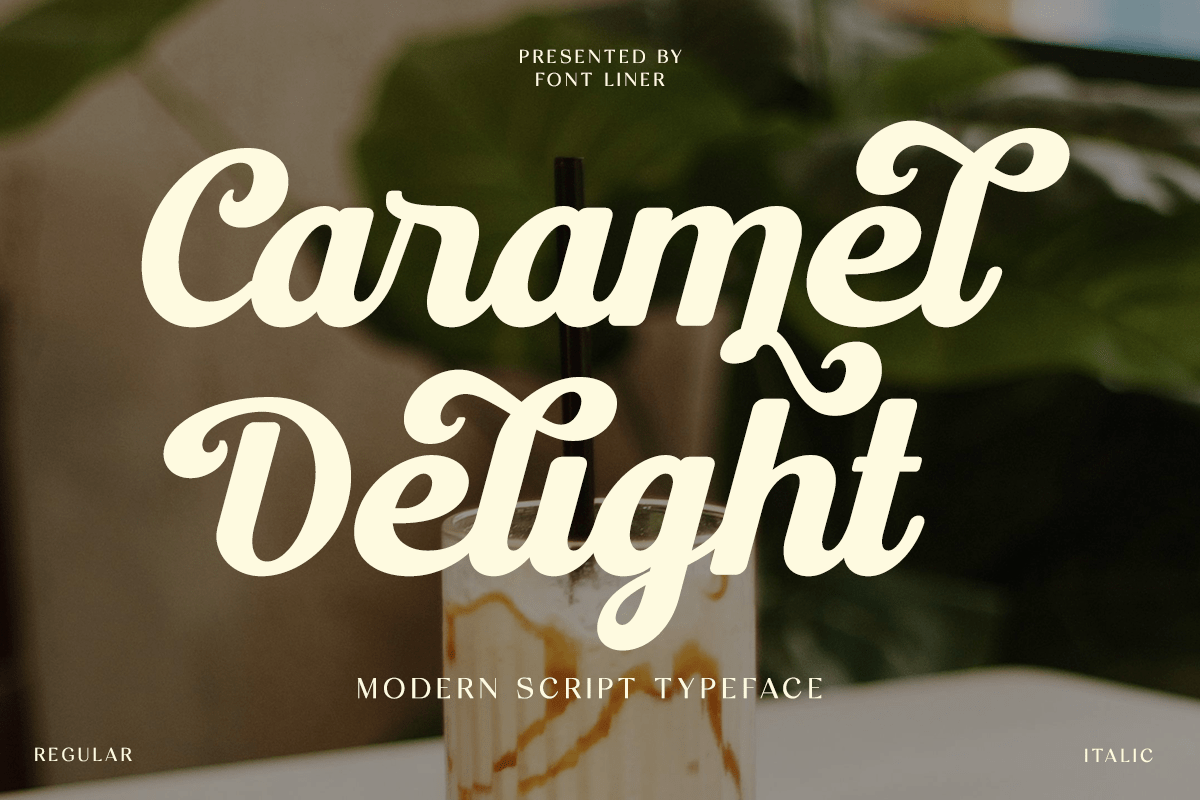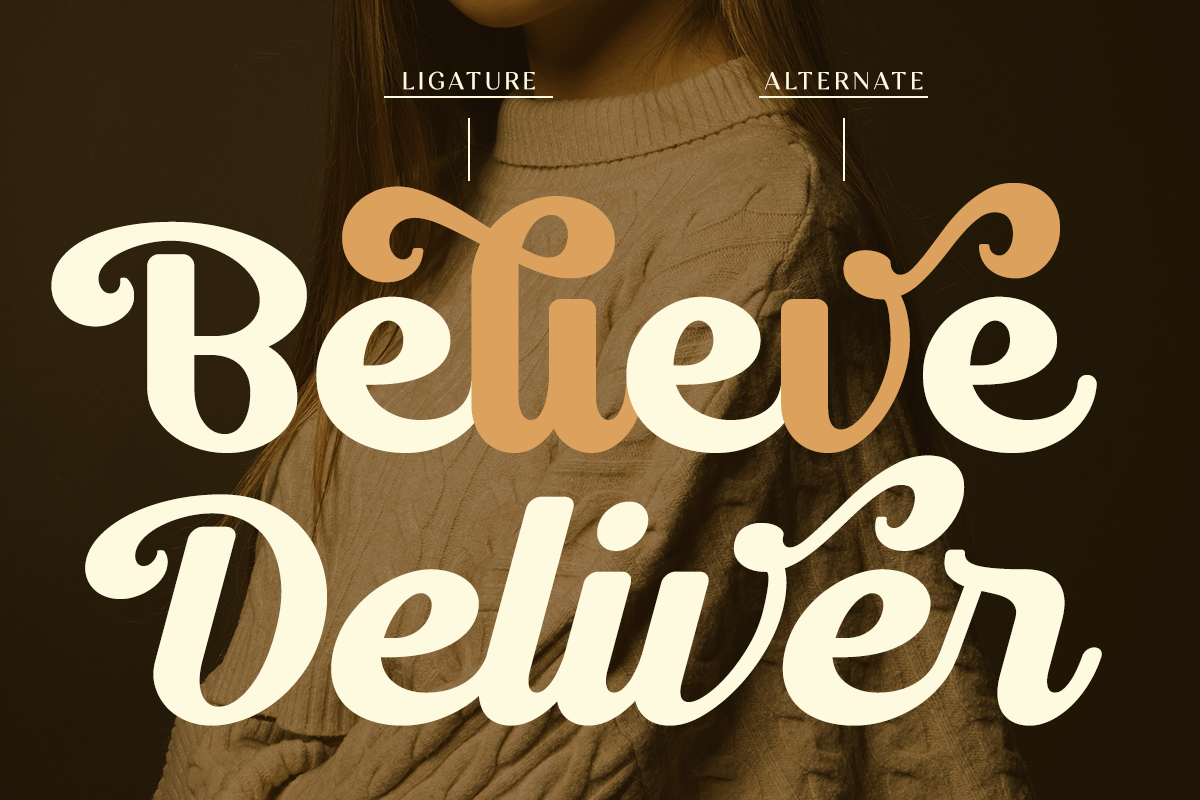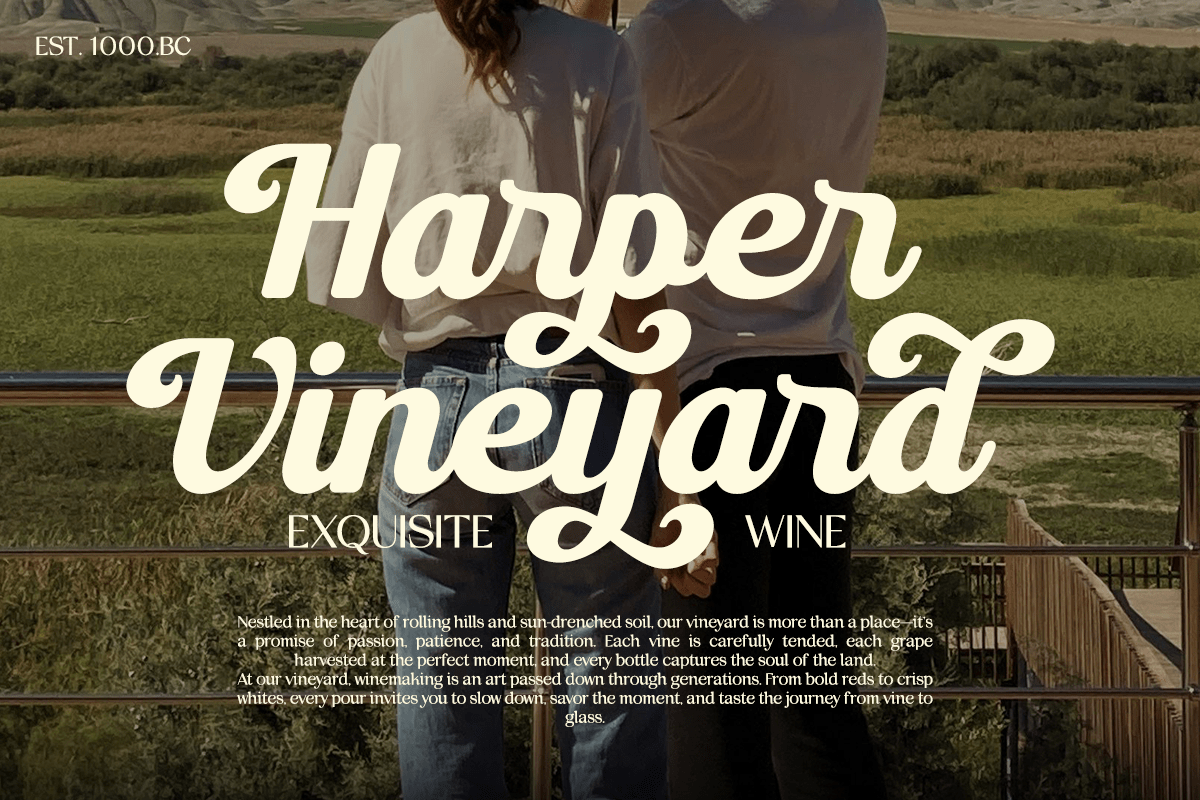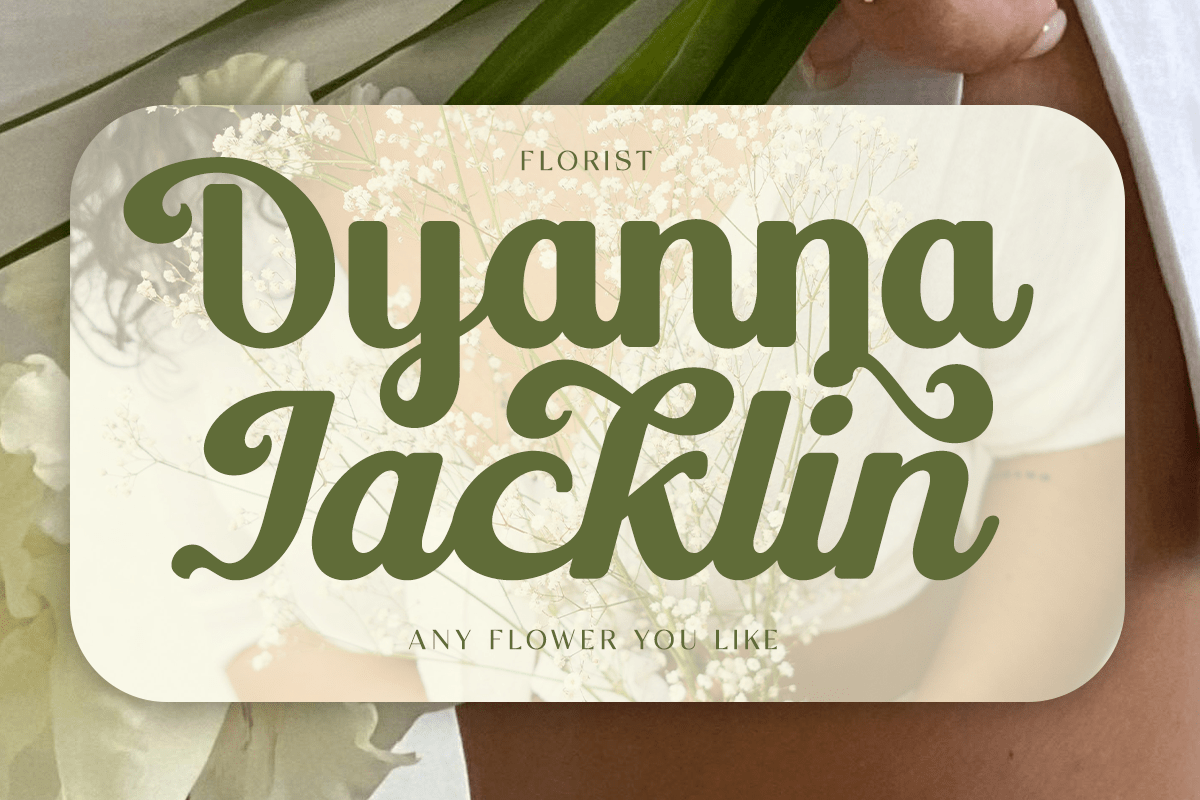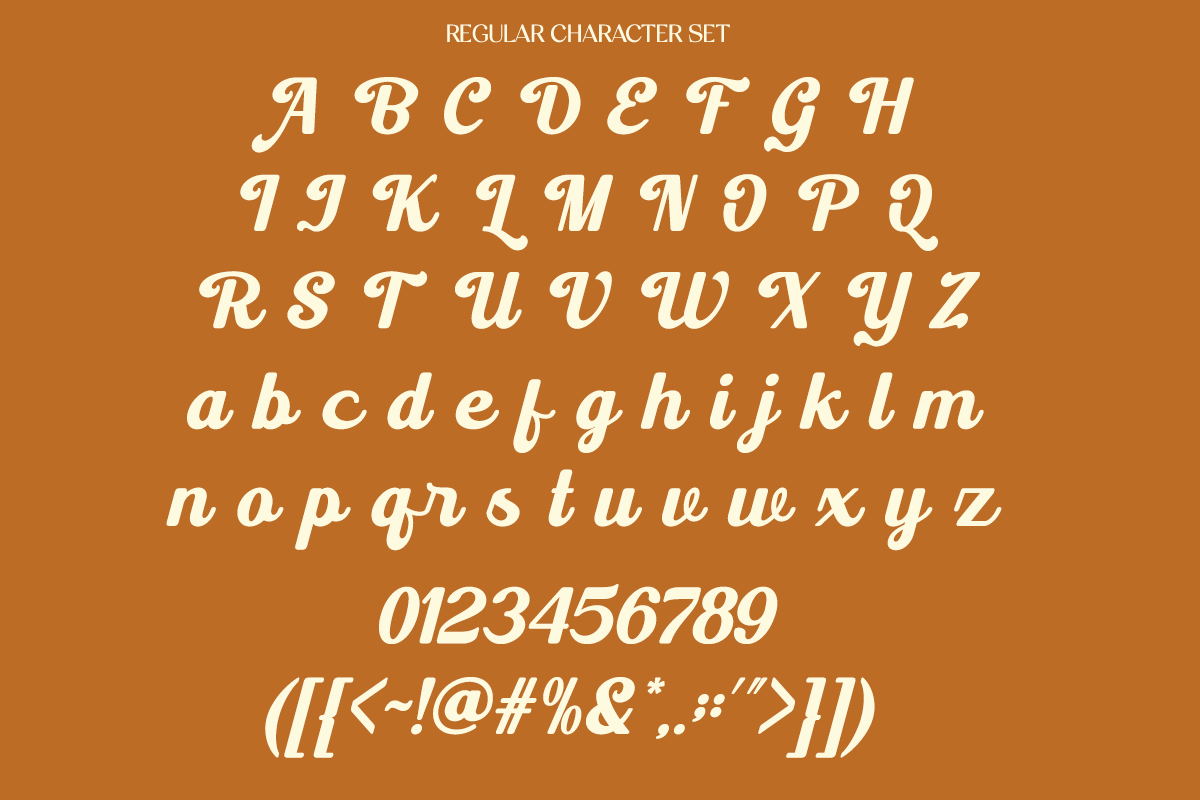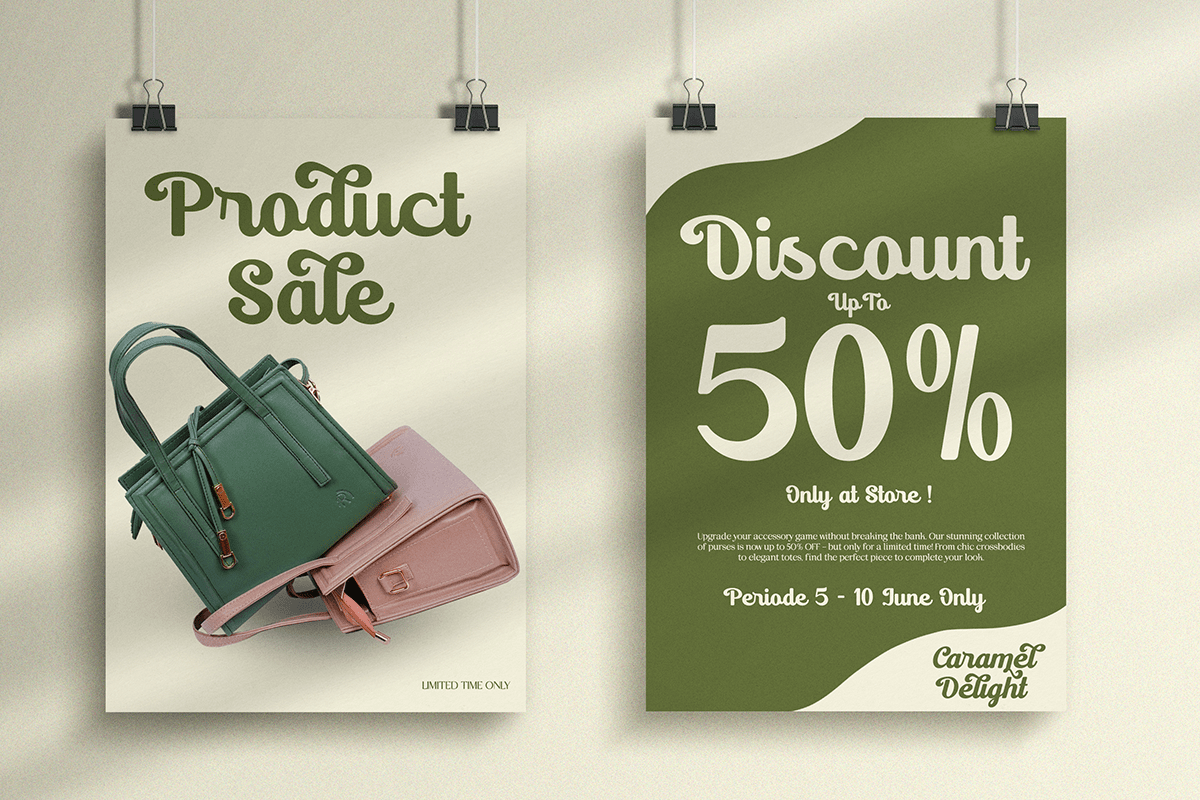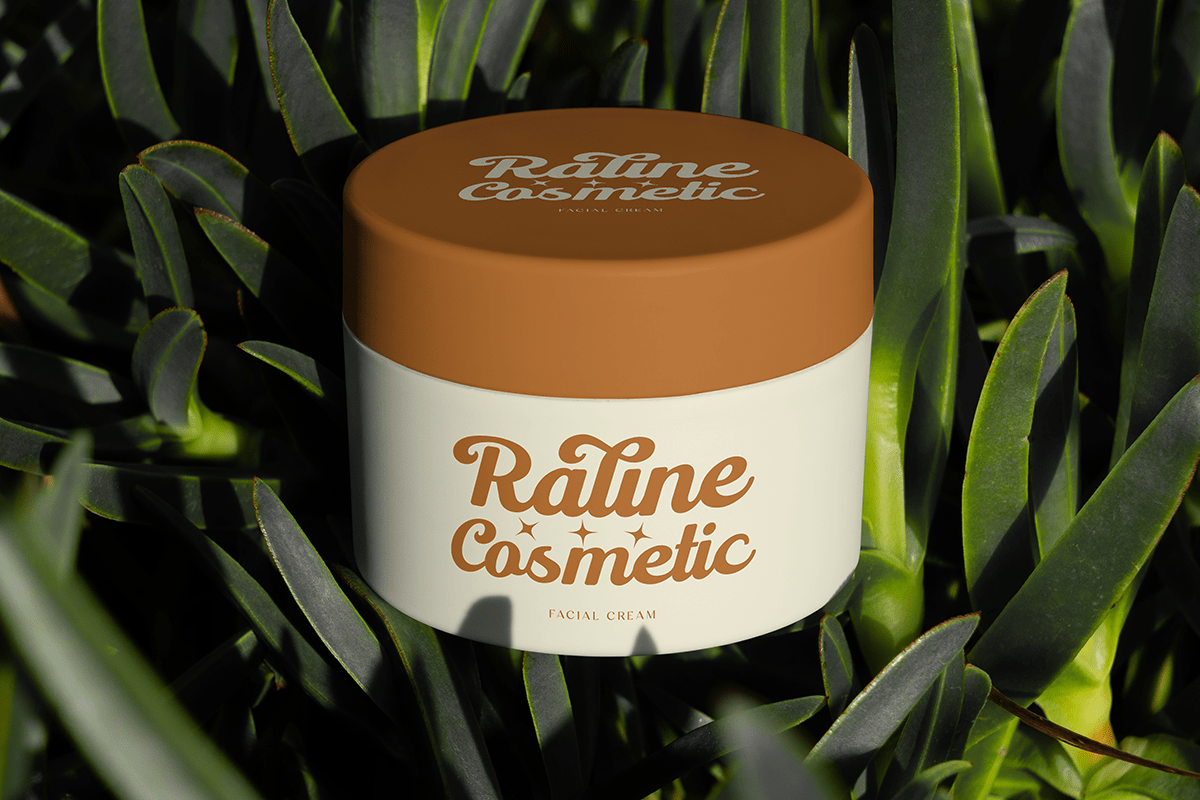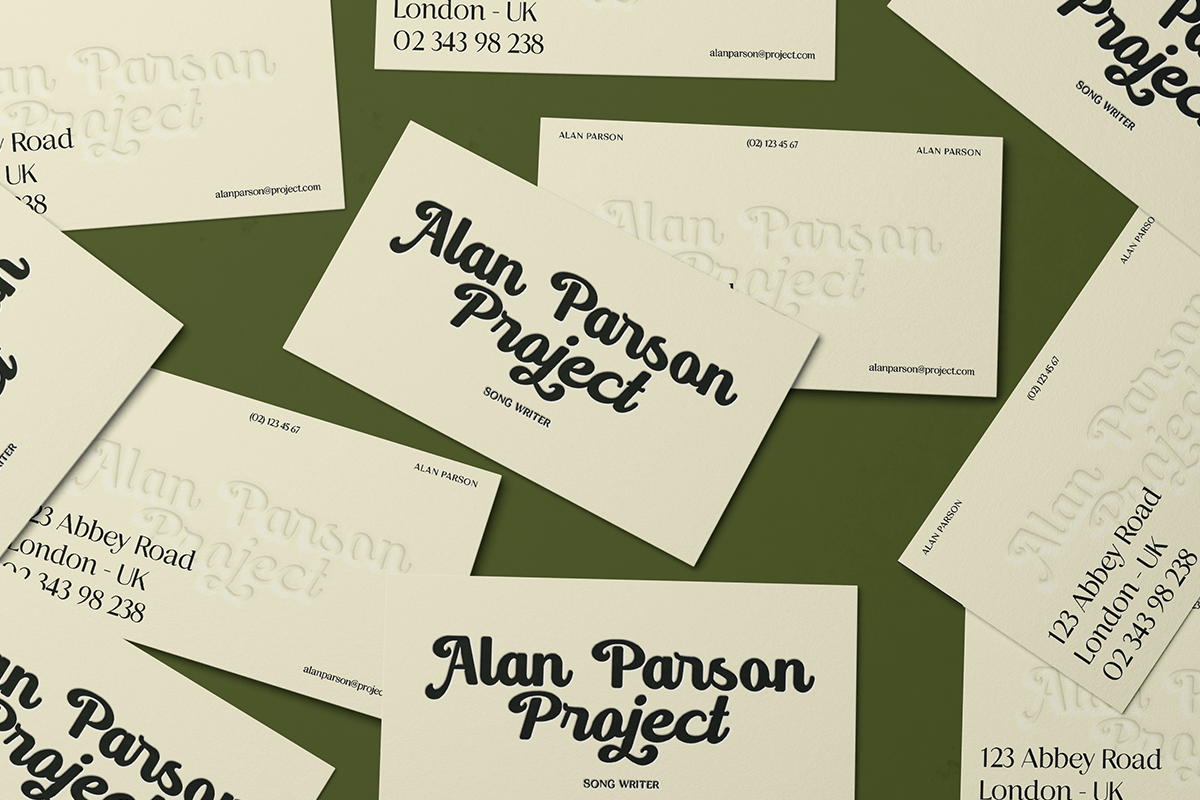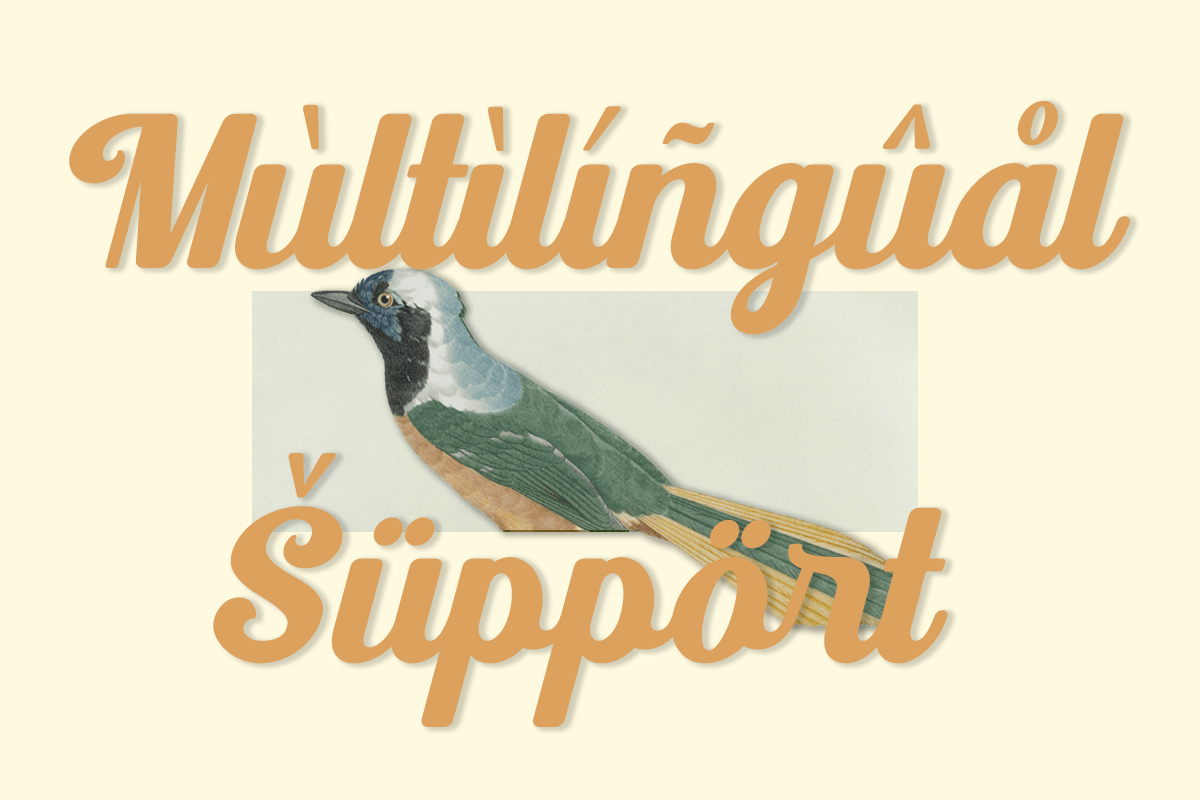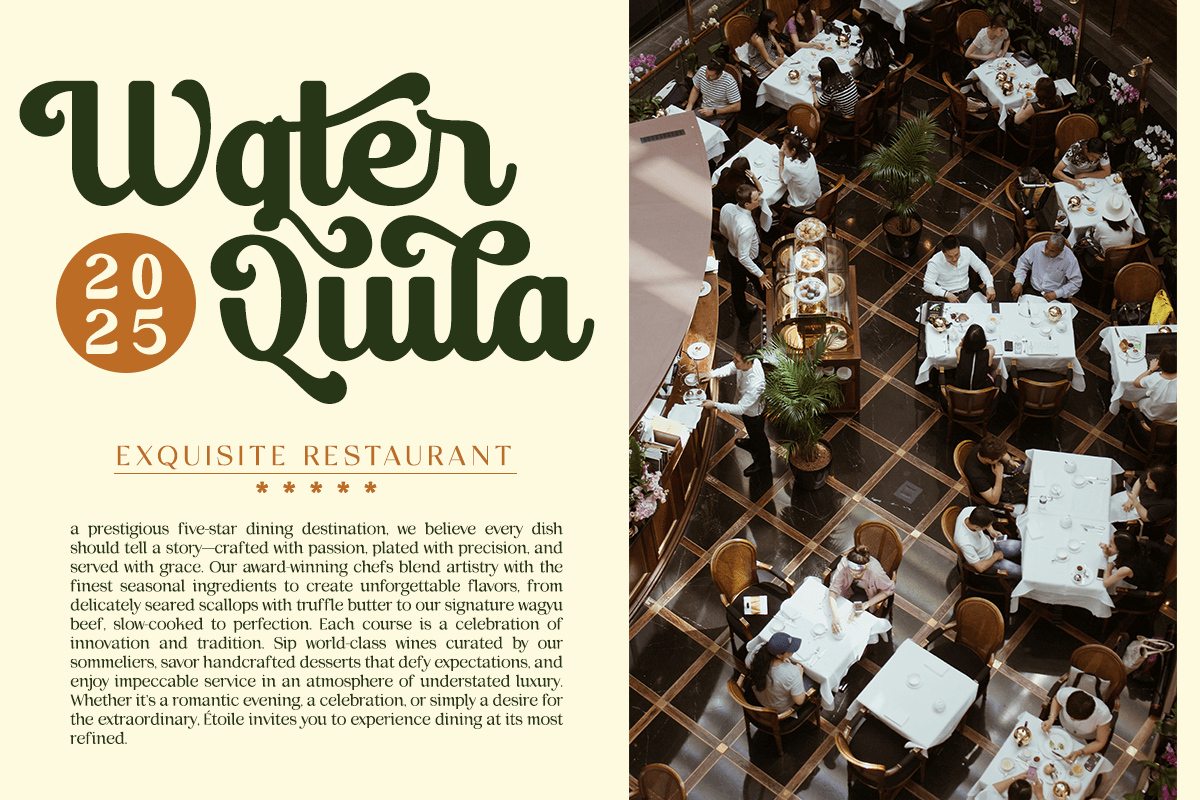
Caramel Delight – Retro Script Font
Caramel Delight is a charming retro script font that blends vintage sign painting with smooth handwritten elegance. Featuring bold flowing strokes, expressive swashes, and beautifully connected letterforms, this typeface delivers a warm nostalgic personality while maintaining excellent readability. Its handcrafted style makes it ideal for creating eye-catching logos, authentic branding, and timeless display typography.
Designed for cafés, bakeries, restaurants, coffee shops, packaging, lifestyle brands, fashion labels, cosmetic products, merchandise, social media, and editorial projects, Caramel Delight adds a friendly and premium touch to every design. Whether you’re creating product labels, restaurant menus, posters, invitations, or boutique branding, this font offers the perfect balance of playful character and professional quality.
Caramel Delight includes regular and italic styles, uppercase and lowercase characters, stylistic alternates, ligatures, multilingual support, numerals, punctuation, and symbols, giving designers complete creative freedom. From artisan food packaging and café branding to modern vintage identities and promotional campaigns, Caramel Delight is the perfect retro script font for memorable and expressive typography.
– Stylistic alternates
– Uppercase, Lowercase & Ligatures